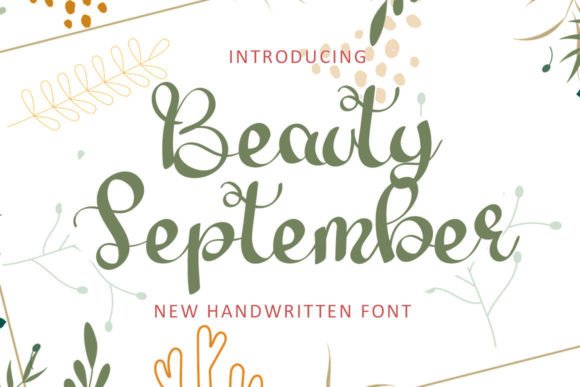
Introducing Beauty September Font: A Calligraphy Masterpiece for Your Special Occasions
Journey into the world of Beauty September, a breathtaking script font that exudes elegance, romance, and sophistication. Step into a realm where your words dance with grace, leaving a trail of beauty and fascination. Mr. Soon Design, the creative genius behind this masterpiece, has woven magic into every curve and stroke, ensuring that your designs radiate timeless charm.
With Beauty September, you hold the key to unlocking a treasure trove of possibilities. Its versatility knows no bounds, making it the perfect companion for wedding invitations, heartfelt cards, captivating social media posts, stylish bags, trendy clothing, eye-catching web designs, captivating flyers, and so much more. Let your imagination run wild as you witness the transformation of ordinary text into extraordinary works of art.
Experience the allure of Beauty September's delicate strokes, each resembling a gentle caress of a feather. Its lines flow with grace and fluidity, evoking a sense of effortless elegance. The carefully crafted characters dance together harmoniously, creating a visual symphony that captivates the heart. Immerse yourself in the beauty of each letterform, intricately designed to leave a lasting impression.
Whether you're a seasoned designer or just starting your creative journey, Beauty September is your trusted guide. Its user-friendly nature makes it accessible to everyone, allowing you to effortlessly infuse your designs with a touch of magic. Unleash your creativity and watch as your projects blossom into masterpieces, leaving a lasting impression on all who behold them.